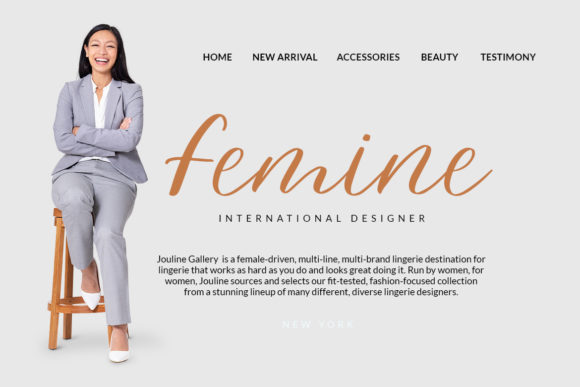
Bready Font
db-ku.com - Script & Handwritten -- Bready feels equally gorgeous and delicate. It looks beautiful on wedding invitations, thank you cards, quotes, greeting cards, logos, business cards and every other design which needs a customized touch.